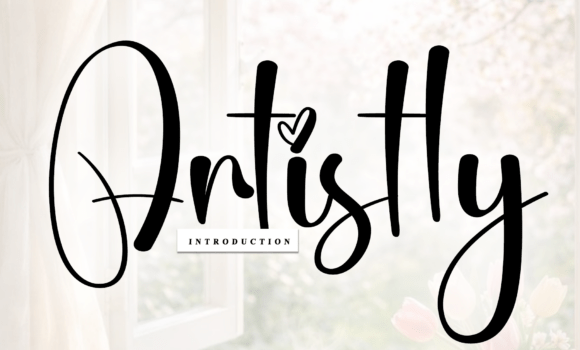
Artistly Font – Free Download Introduction to Artistly Font Artistly is a sophisticated and rhythmic script font that balances a calligraphic style with a warm, organic aesthetic. 📸 Preview Gallery 4 images 📌 Product Name Artistly Font 👤 Author pinkmeca